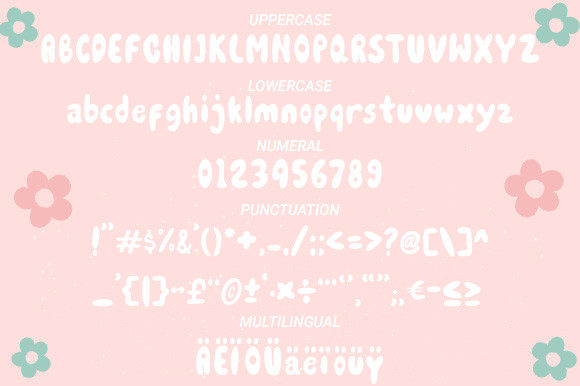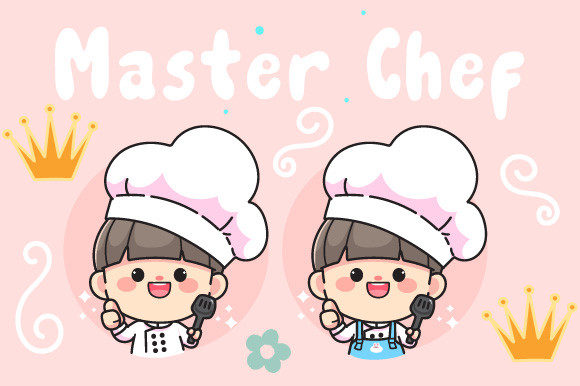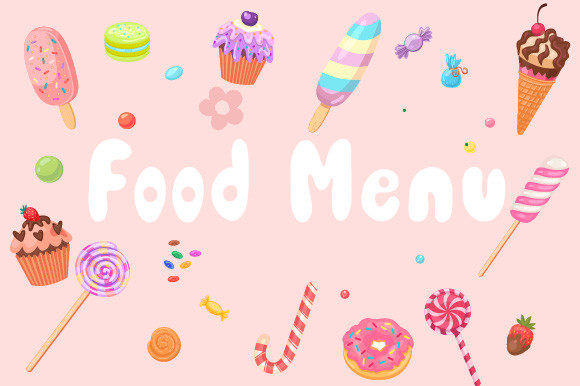
Introduction to San Lorenzo Font
San Lorenzo was designed with hand-drawn strokes, thick grooves and unique vibes.
It is perfect for product packaging, branding project, magazine covers, social media, wedding, or just used to express words above the background .